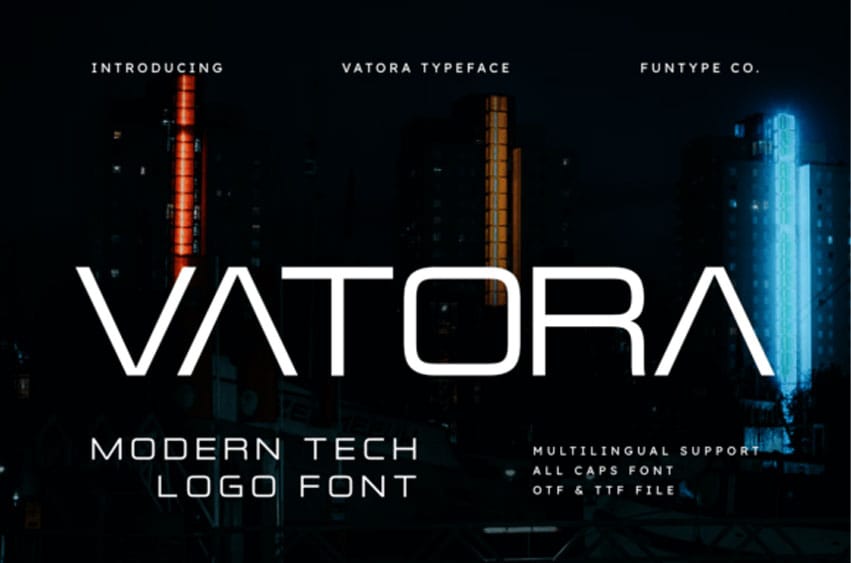
Vatora Font is a bold and powerful modern tech logo font designed for high-impact and precise typography. With its refined wide structure and clean, solid lines, this font is perfect for strong headlines, professional technology logos, industrial branding, and high-impact digital posters.